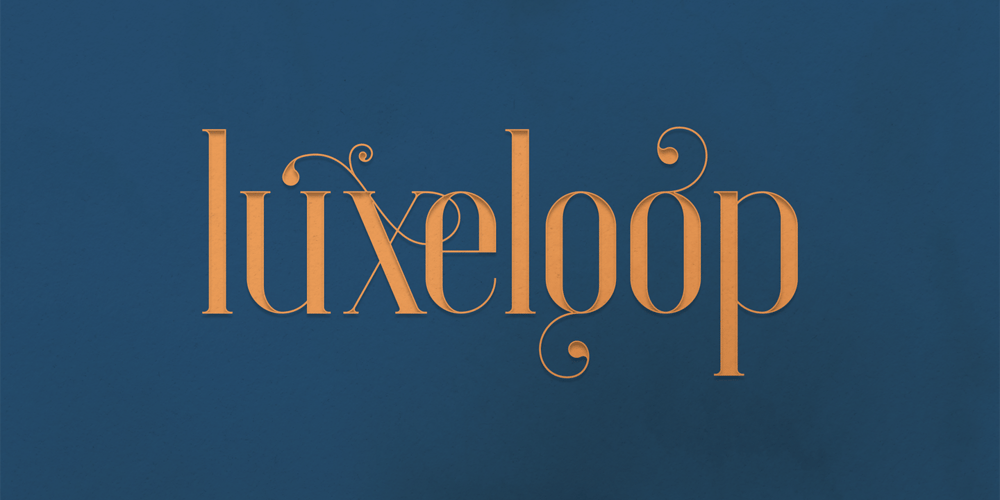
Luxe Loop
Luxe Loop font
Luxe Loop Font Family was designed by Vladimir Fedotov and published by VP Creative Shop. Luxe Loop contains 1 styles and family package options. Introducing LuxeLoop – serif font LuxeLoop is vintage, elegant font with tons of alternate glyphs, ligatures and multilingual support. It’s a very versatile font that works great in large and small sizes. LuxeLoop is perfect for branding projects, home-ware designs, product packaging, magazine headers – or simply as a stylish text overlay to any background image.